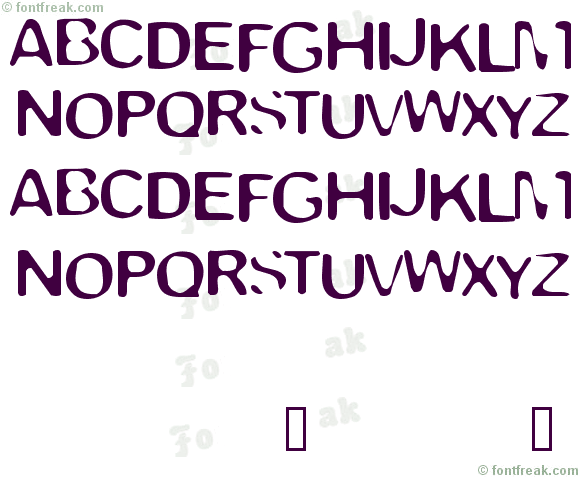
Trapped Light
Trapped, designed by Jason Fagone, is a unique display font that captivates with its playful, whimsical character. This font leans towards a decorative style, making it an excellent choice for projects that require a touch of creativity and flair. The stroke weight varies throughout the letters, providing a sense of dynamism and energy. With rounded edges and a slightly irregular baseline, Trapped exhibits a friendly and approachable vibe, which enhances its decorative qualities. The spacing between characters is generous, allowing the font to breathe and making it easier to read in larger formats.
Trapped is ideal for a variety of use cases. It shines in applications such as children's book titles, where its fun aesthetic can attract young readers. Additionally, it works wonderfully for party invitations, bringing a festive feeling to any celebration. Graphic designers will find it useful for creating eye-catching posters, especially those targeting a younger audience or promoting entertainment events. Restaurant menus featuring this font can evoke a casual and inviting atmosphere, making it suitable for cafes or bistros. Content creators looking to add a distinctive touch to their blogs or websites can also benefit from incorporating the Trapped font into their designs.
The target audience for Trapped includes graphic designers, small business owners, and content creators who seek to infuse their work with personality and creativity. With its freeware license, the Trapped font free download is accessible for anyone looking to enhance their design projects without the burden of licensing fees. This font stands out for its versatility and charm, making it a valuable addition to any designer's toolkit. Whether you're crafting playful visuals or engaging content, Trapped is sure to leave a memorable impression.